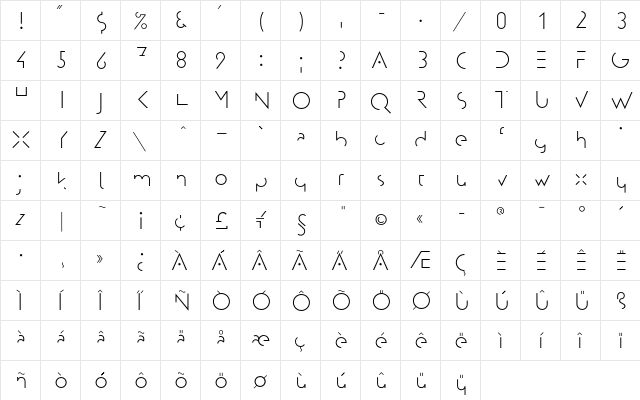
Artgallery Regular
Design Context for Artgallery Typeface
Artgallery takes a measured approach to typography — its balanced proportions and neutral character make it a reliable workhorse for both digital and print work.